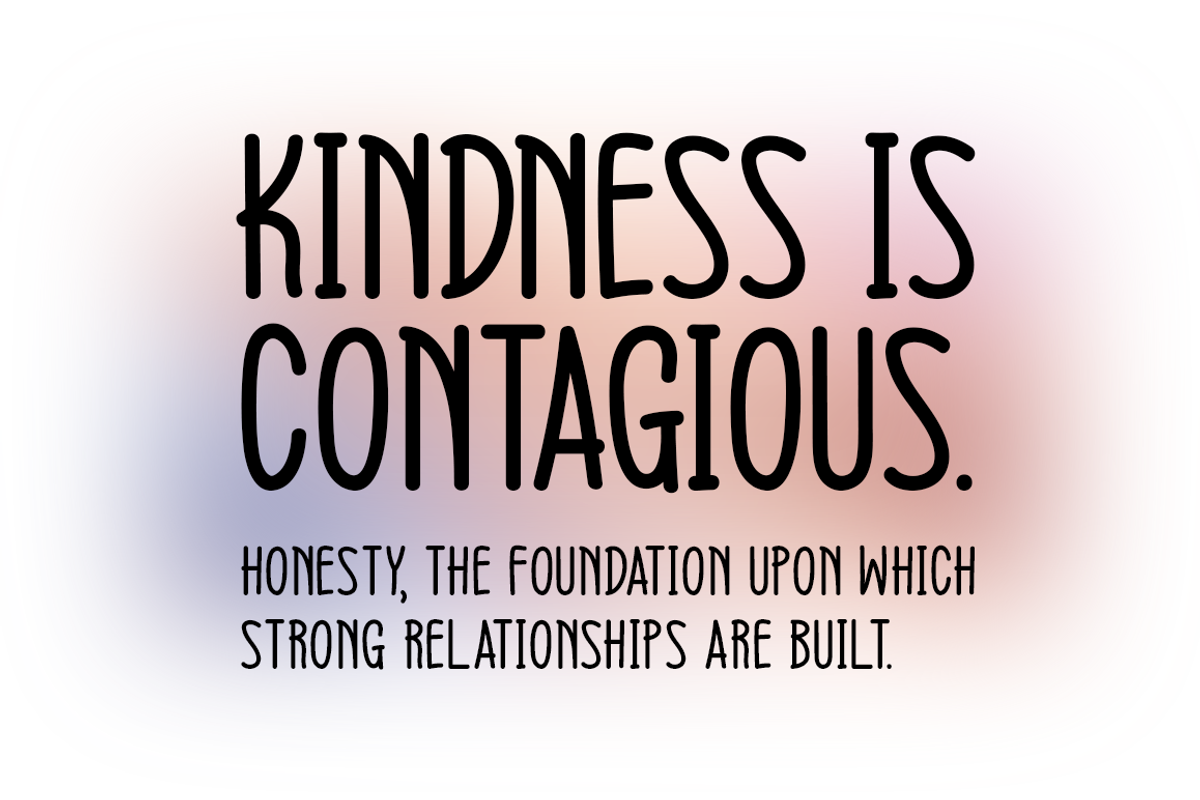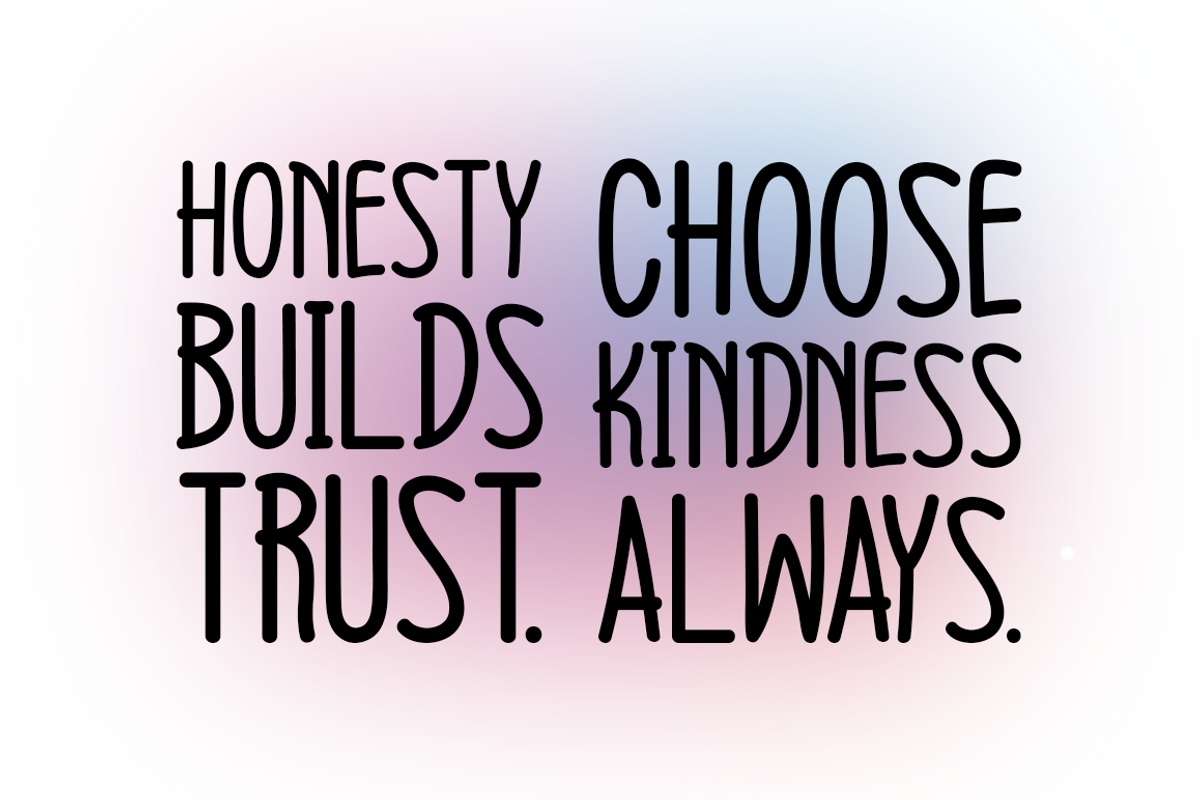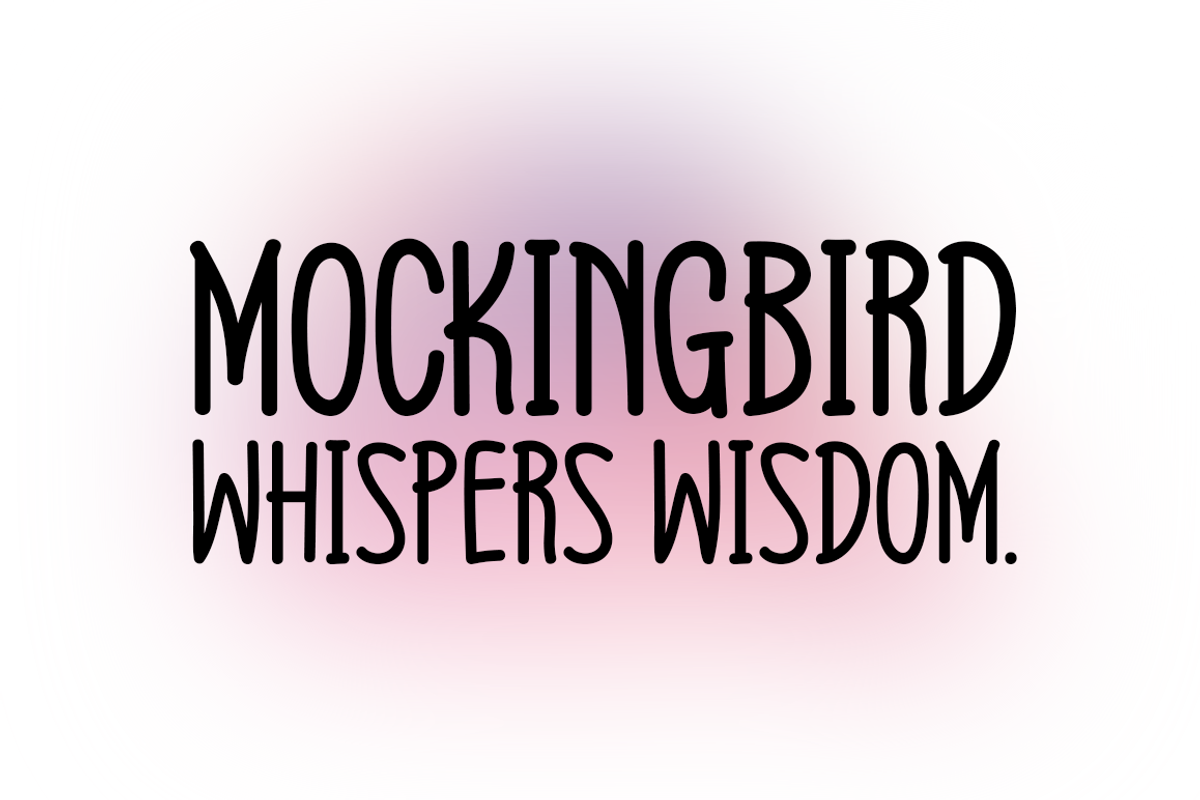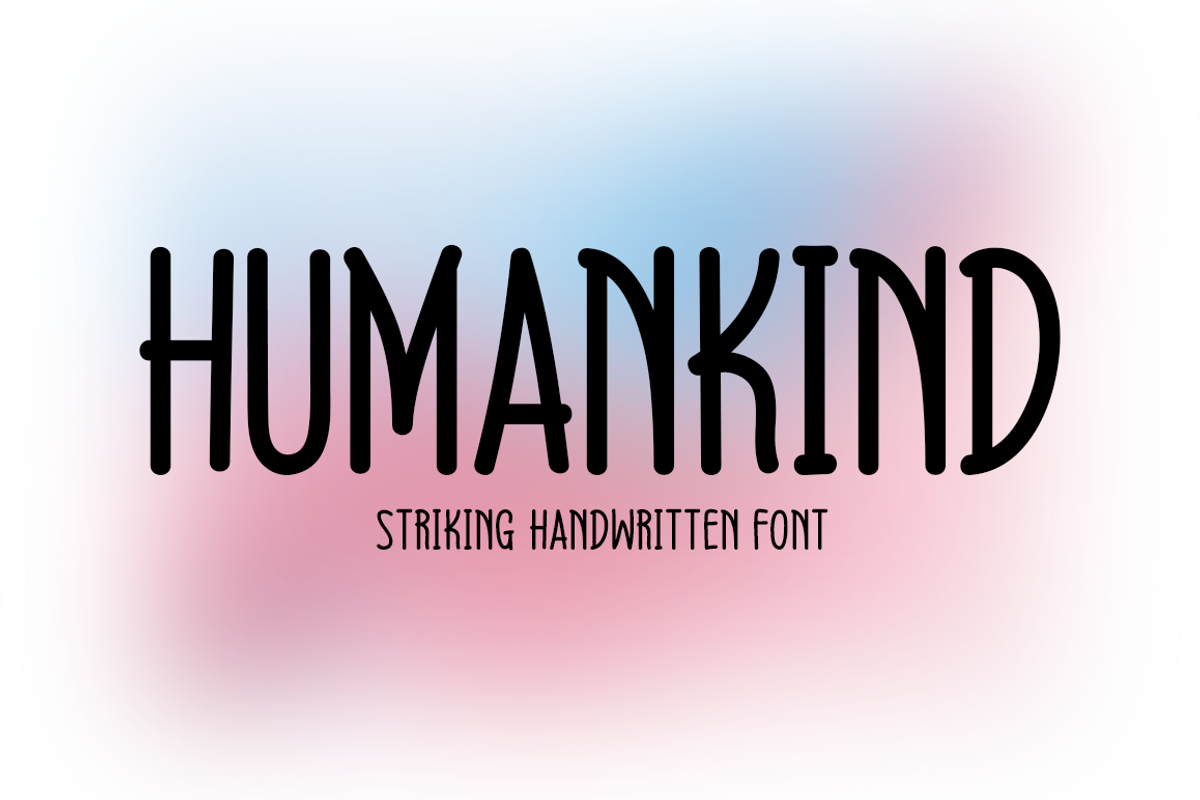
Humankind Typeface
Humankind is a distinctive handwritten font that offers a modern yet timeless aesthetic, making it a fantastic choice for diverse projects. Whether you're working on branding, stationery, logos, t-shirts, or print materials, its fluid, personable style provides a fresh, inviting touch. This font is also perfect for digital designs such as website headers, photo frames, flyers, posters, album covers, and image sliders, adding a personal and creative edge to every visual.